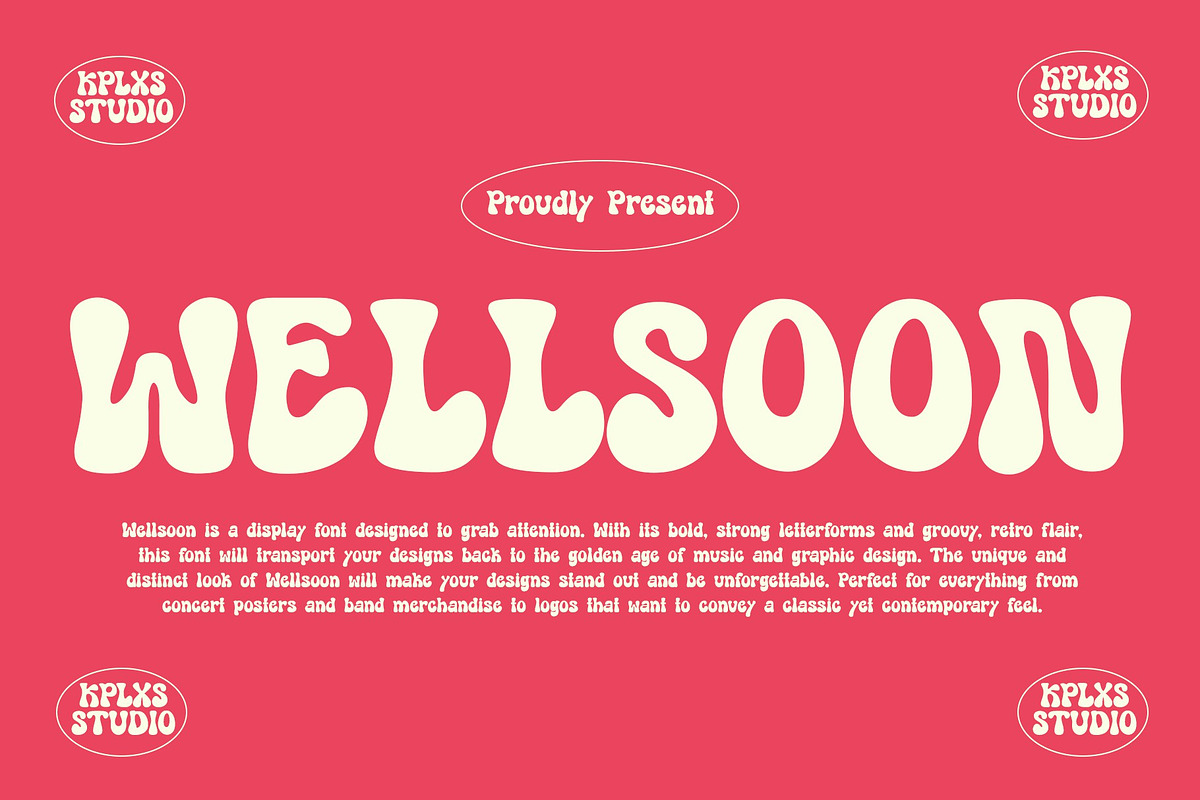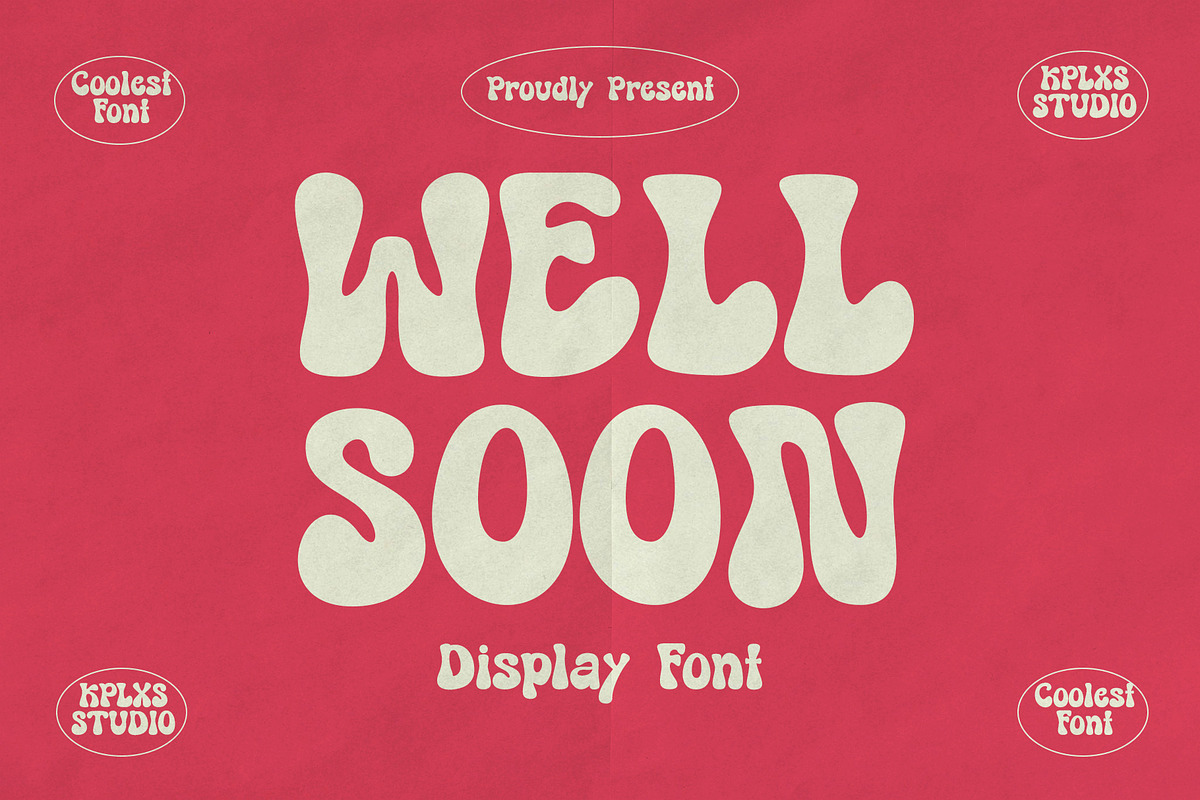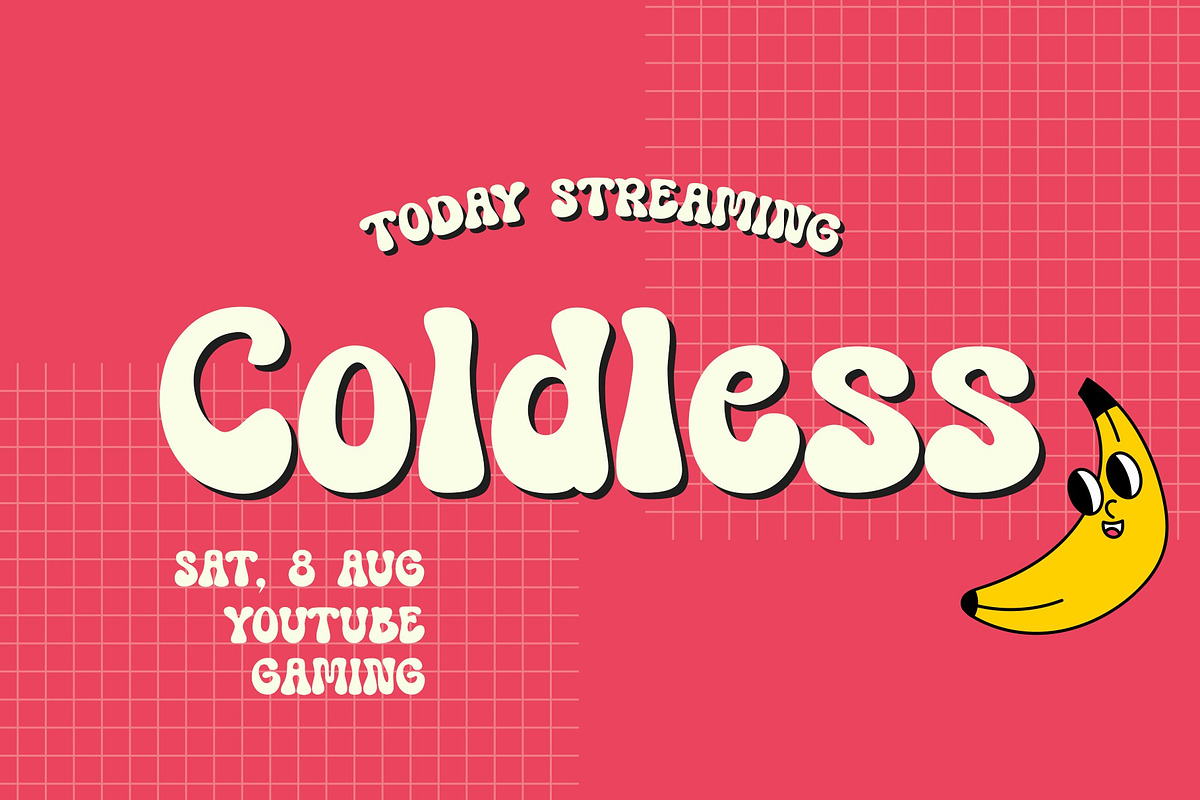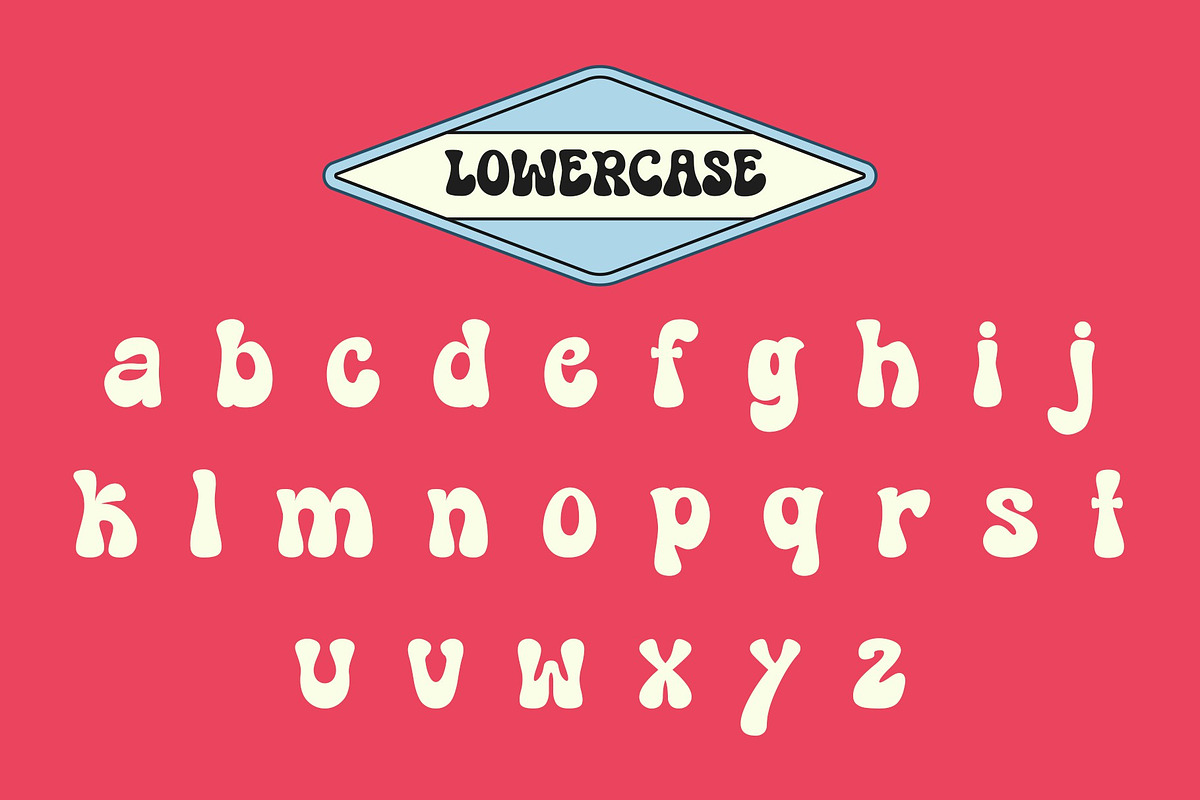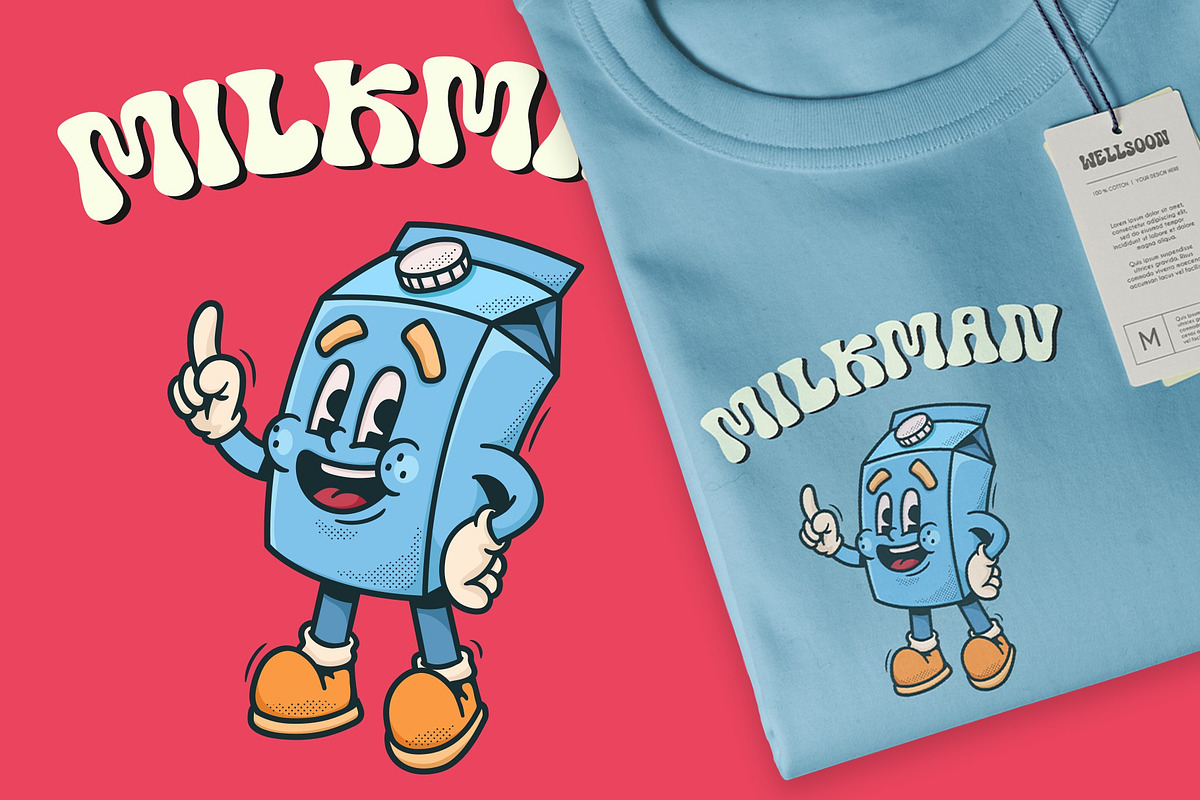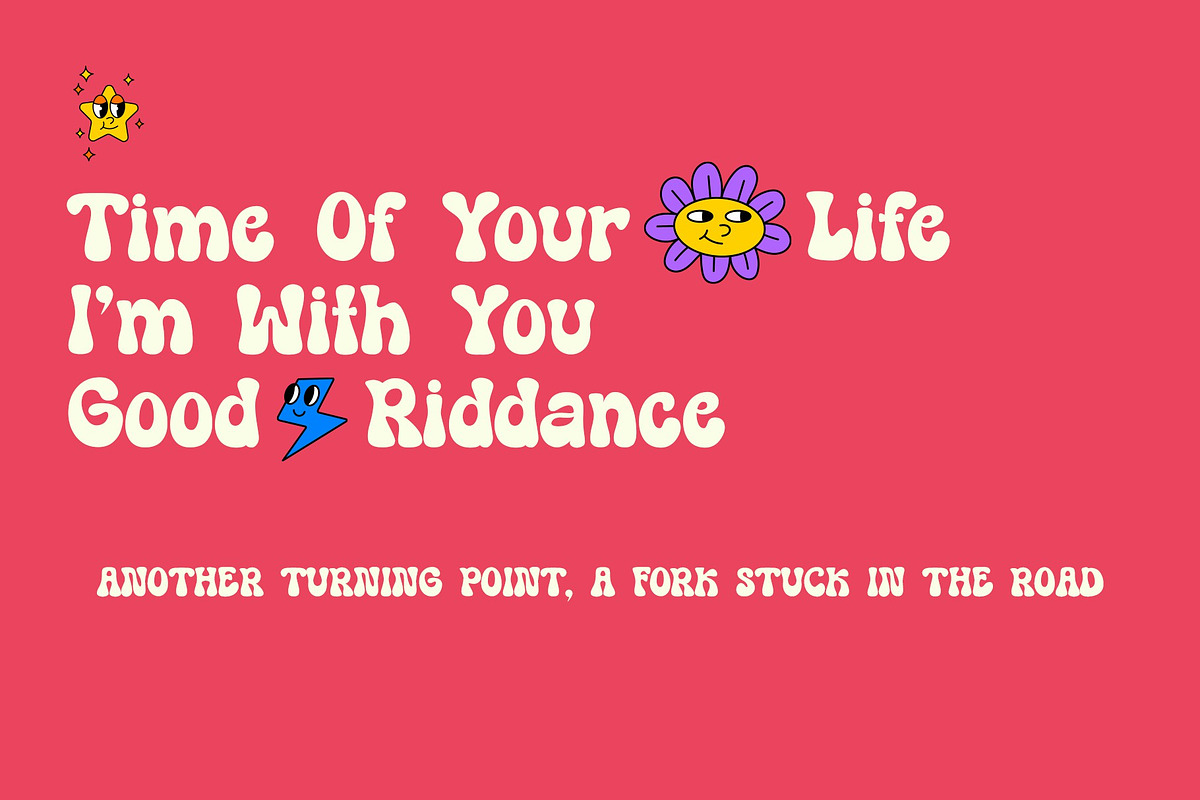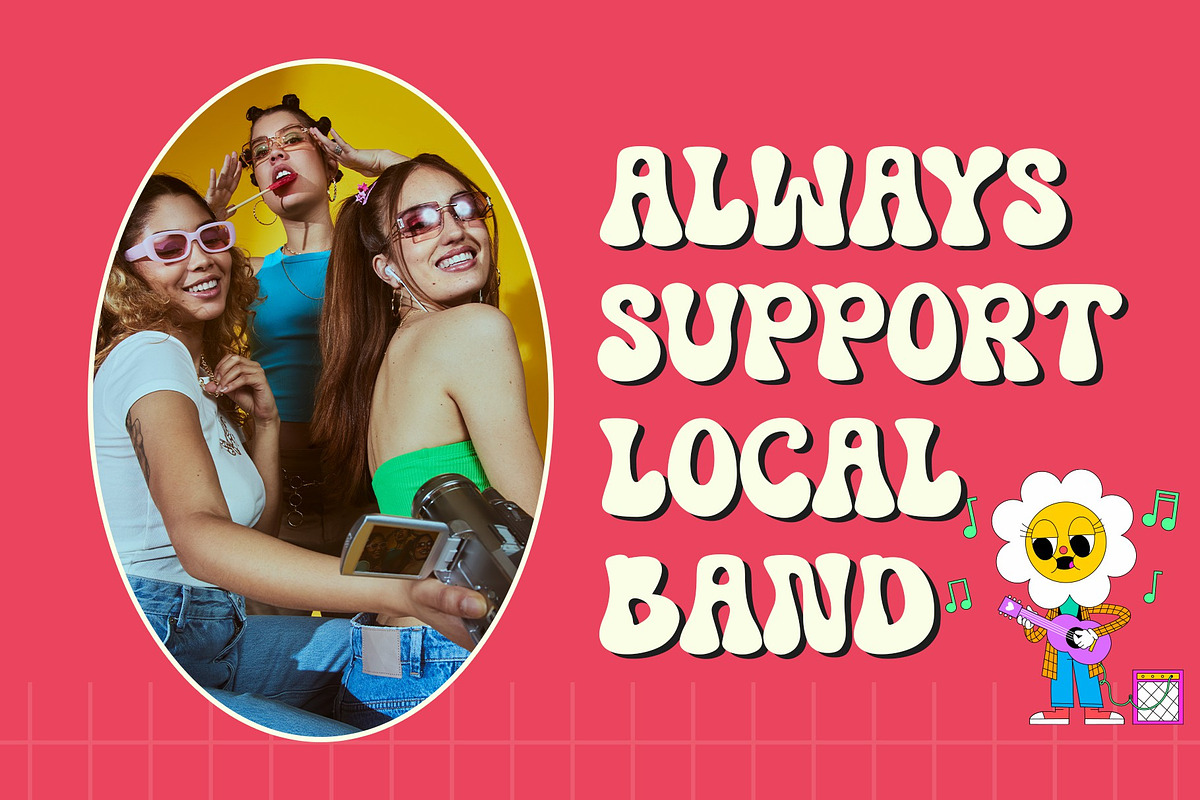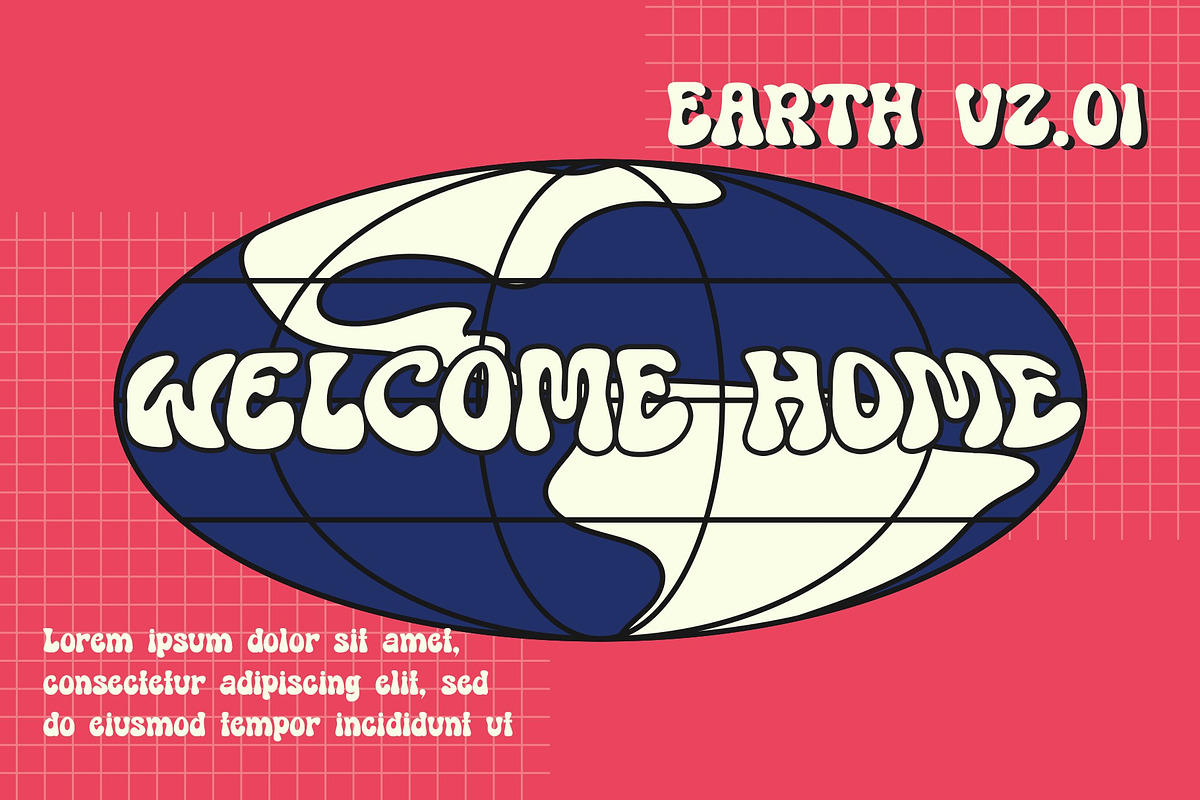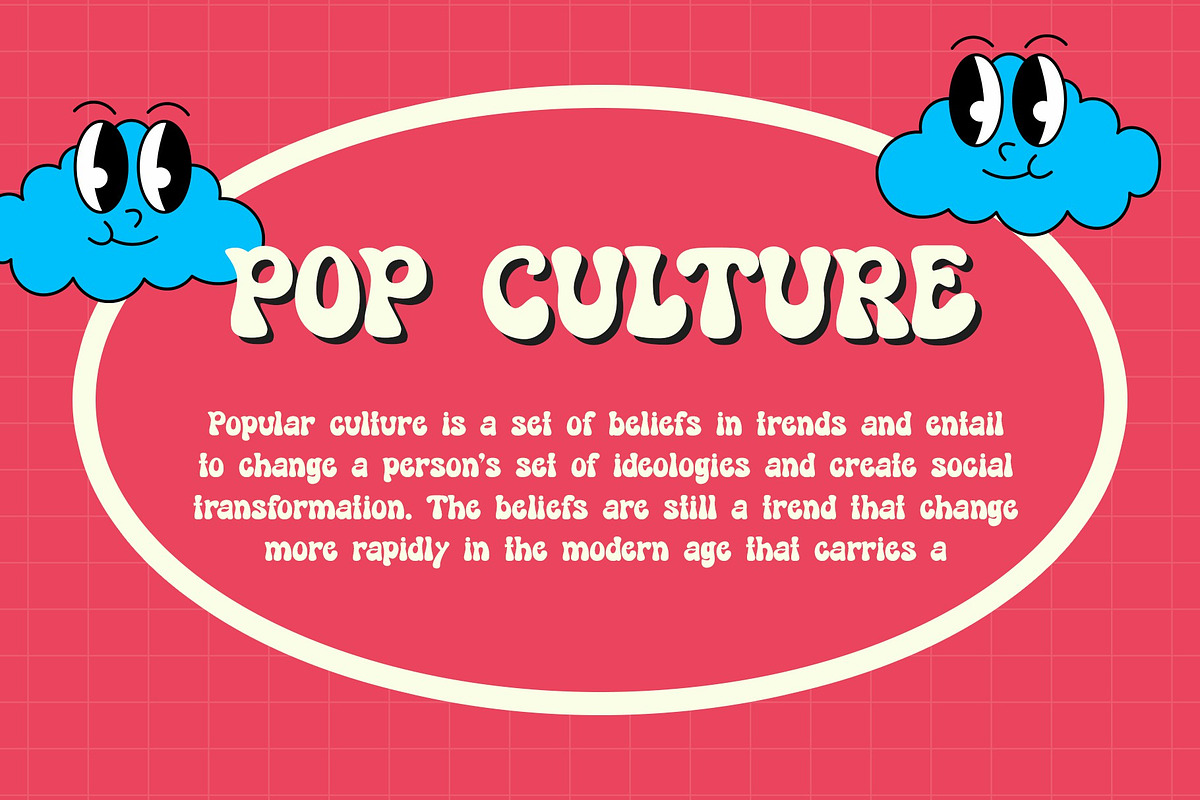
Well Soon - Display Bubble Font
Well Soon is a fun and retro-inspired display font with bubbly, curvy shapes that add a playful vibe to any design. Perfectly tailored for projects that demand a bold and cheerful look, this bubble font is ideal for branding, posters, apparel, packaging, social media graphics, and more.
With its vintage charm and modern versatility, Well Soon stands out in both digital and print applications. The font’s quirky character brings a nostalgic yet contemporary feel, making it perfect for creative professionals, small businesses, and anyone looking to add personality to their designs.
Whether you’re designing for music festivals, kids’ products, quirky quotes, or standout headlines, Well Soon adapts seamlessly. Its smooth and rounded shapes ensure readability while maintaining a bold and expressive aesthetic.
- Bold, retro-inspired display font
- Perfect for branding, headlines, posters, and apparel
- Playful, bubbly shapes with a unique personality
- Supports multiple languages
- Works seamlessly on both print and digital projects
Well Soon is more than just a font – it’s a statement. Make your projects pop with its lively charm and bring your ideas to life with this versatile typeface.